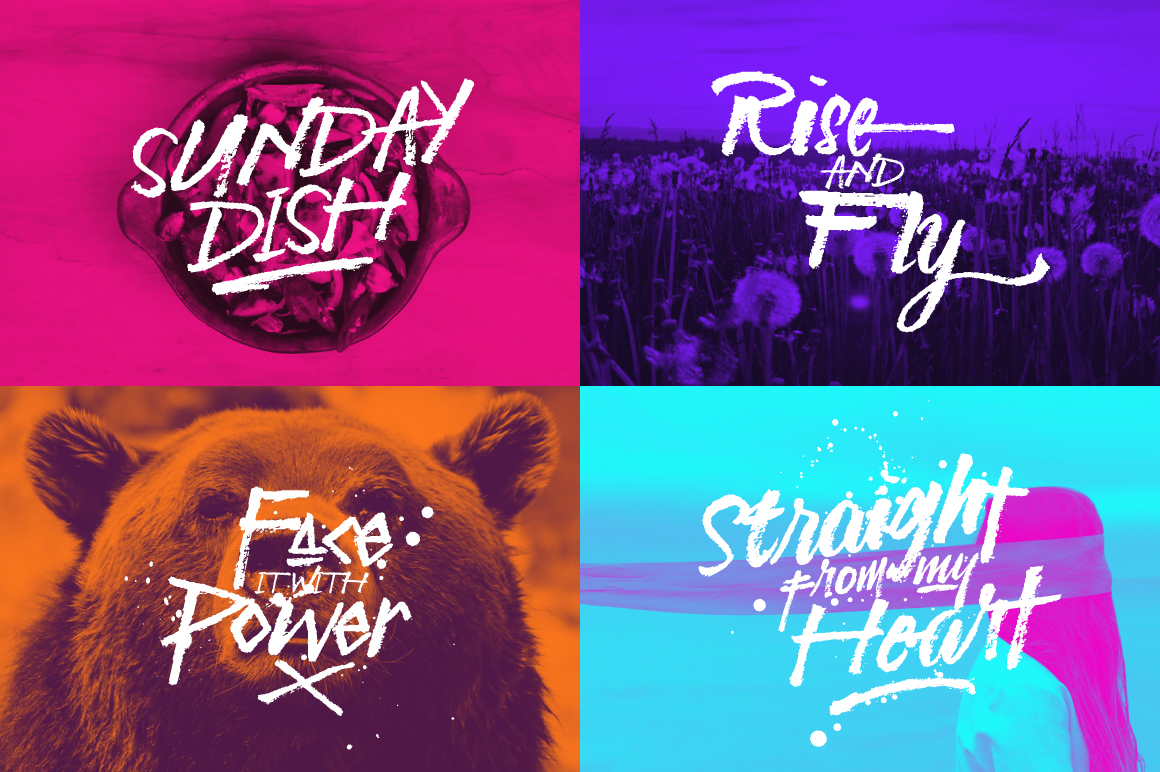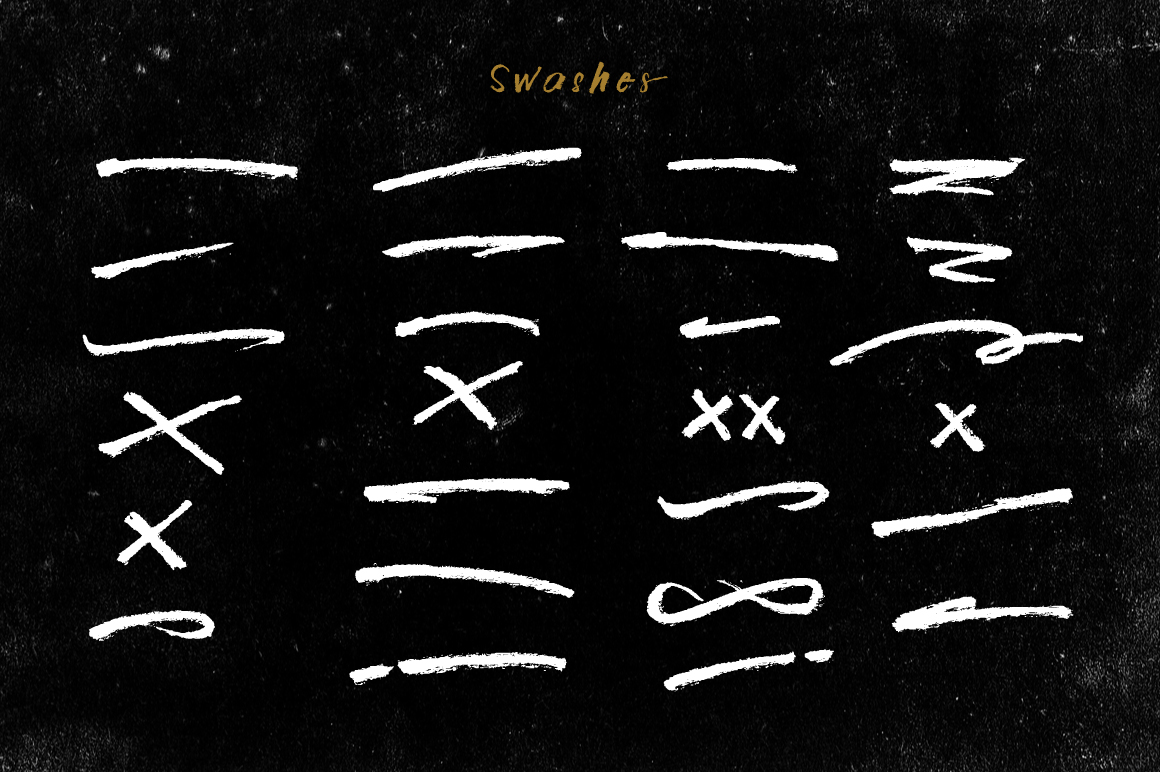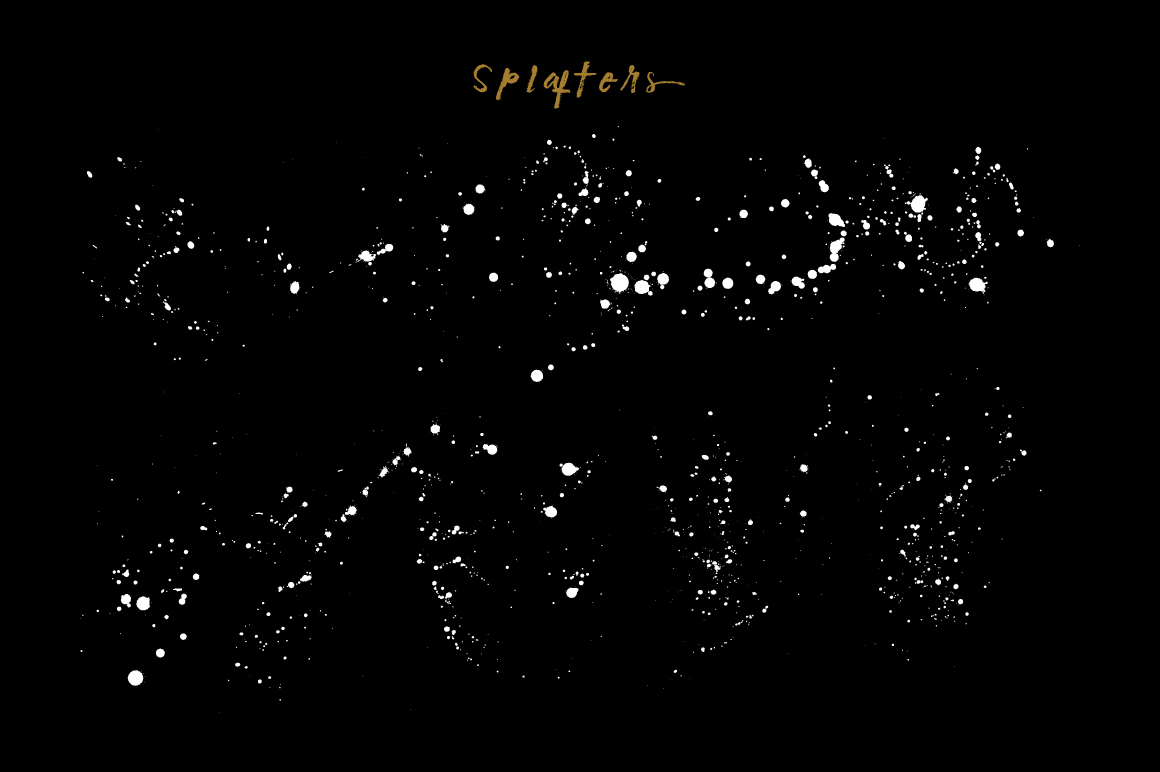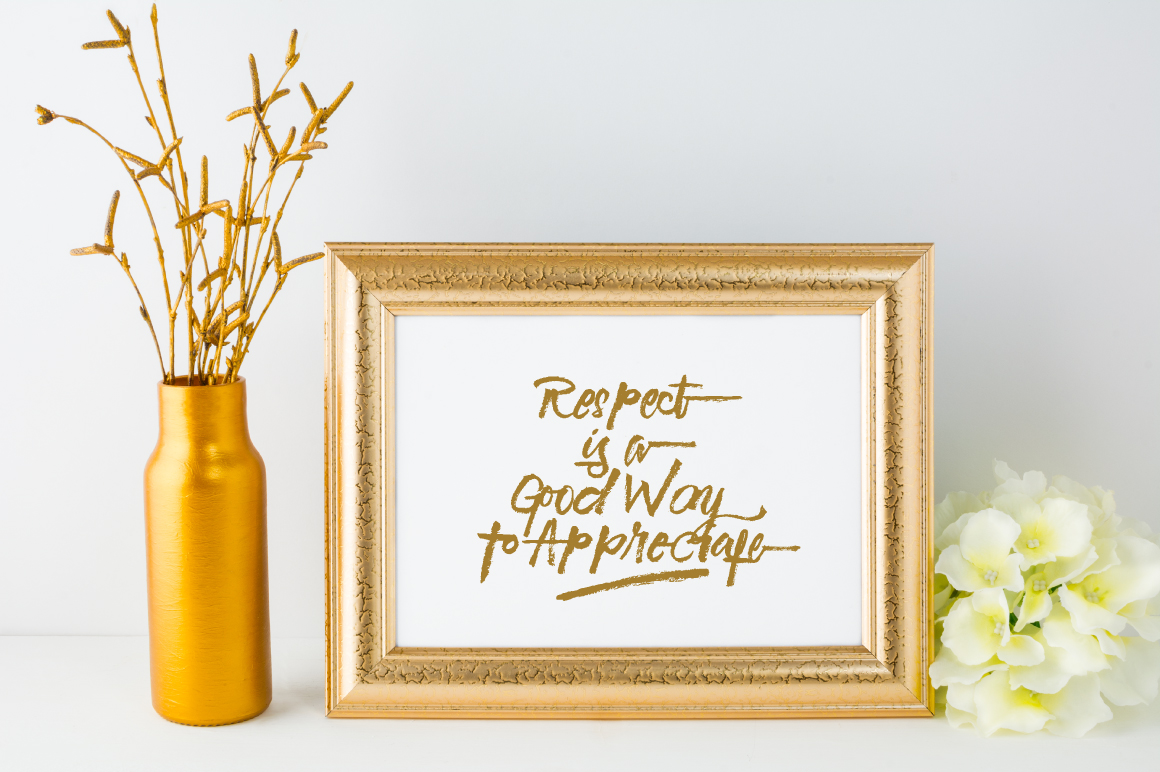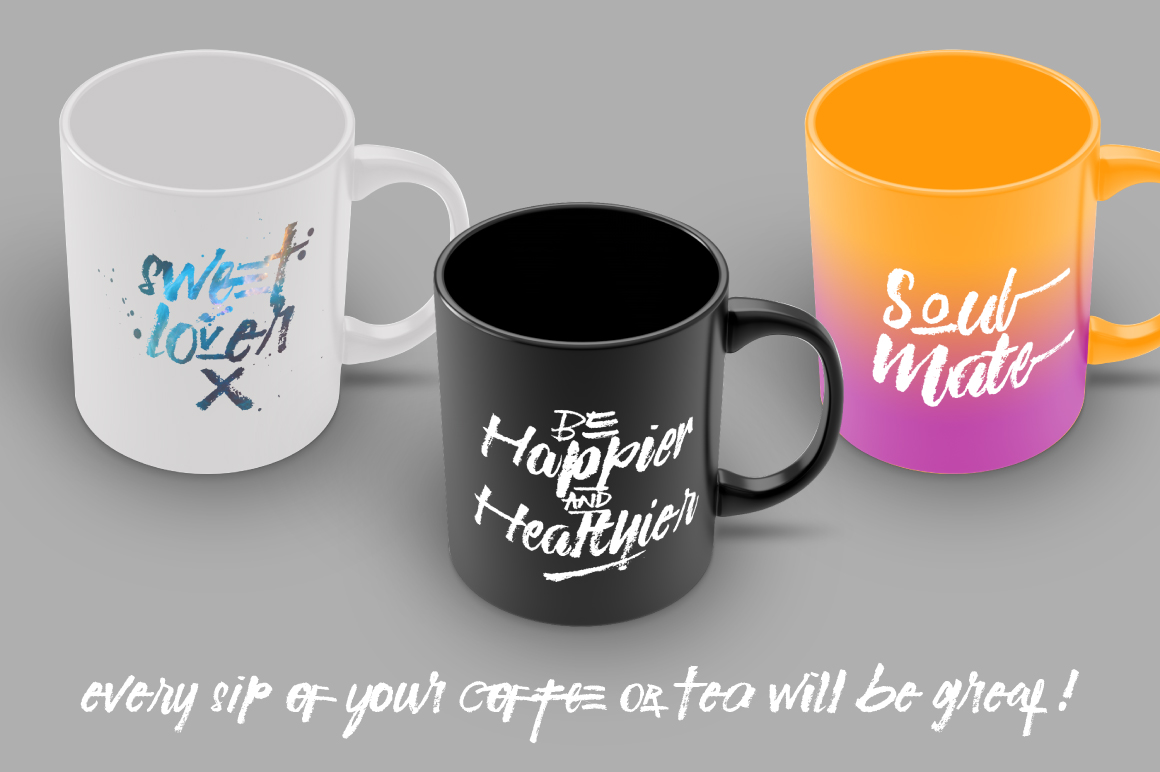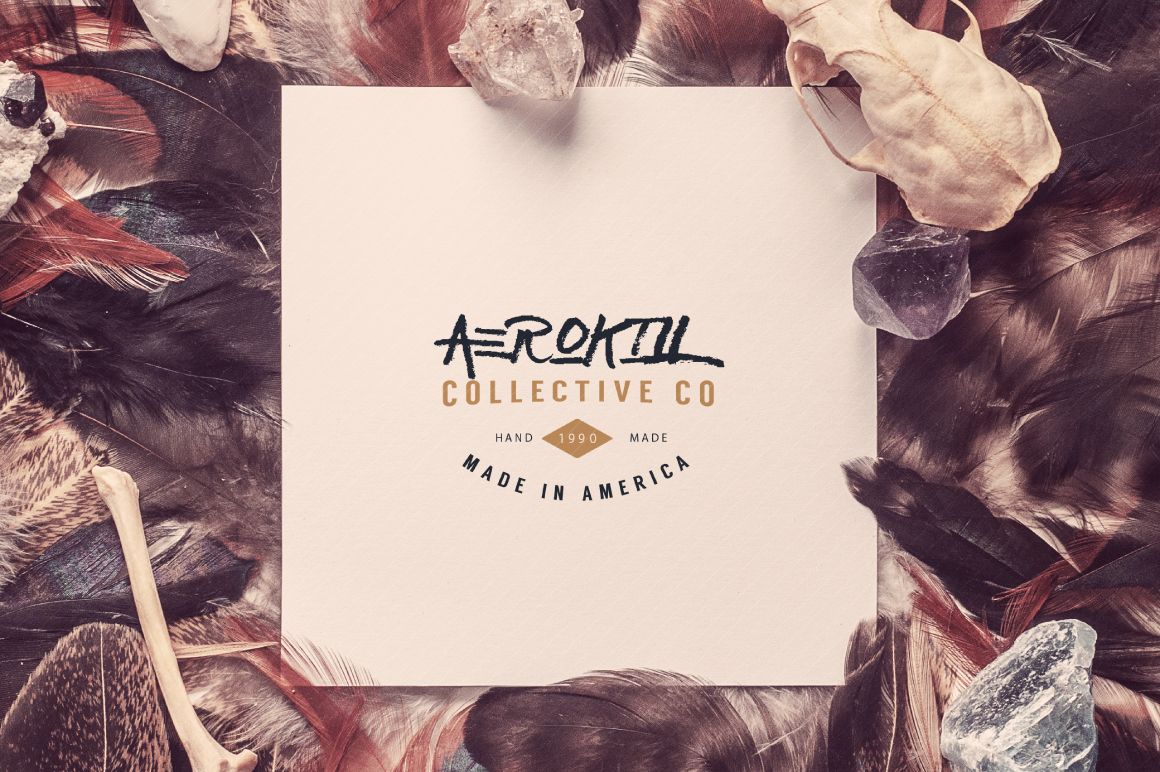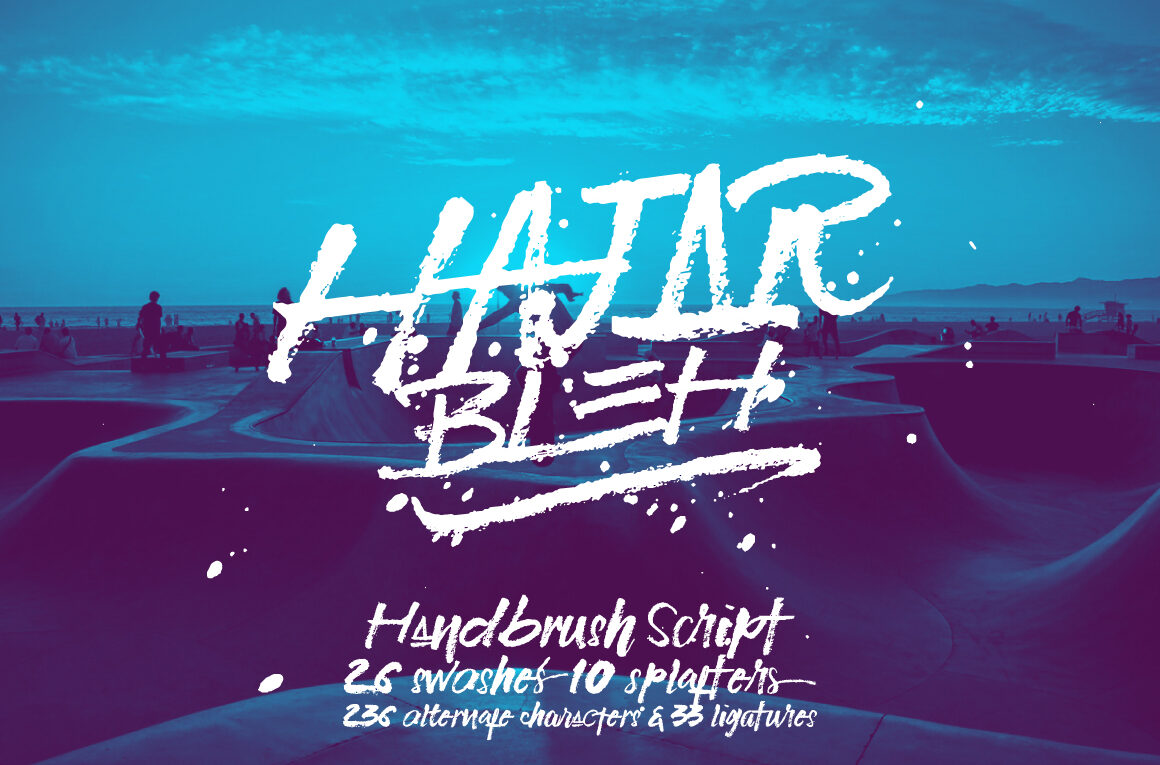
Hajar Bleh Font: Adding a Touch of Whimsy to Your Designs
In the world of typography, fonts play a crucial role in conveying the tone and personality of a design. For designers and crafters looking to add a dash of fun and uniqueness to their projects, the Hajar Bleh font is an excellent choice. This handwriting font boasts a distinctive style that can elevate a wide range of designs, from logos and apparel to invitations and digital media.
What is Hajar Bleh Font?
Hajar Bleh is a handwriting font that features a fun, unique style. Its irregularities and quirks give it a charming, human touch that sets it apart from more traditional fonts. The font’s design is characterized by its flowing lines, varying letter heights, and distinctive letterforms. These characteristics make Hajar Bleh an excellent choice for designs that need to be expressive and attention-grabbing.
Key Features of Hajar Bleh Font
- Handwritten style: Hajar Bleh has a genuine handwritten feel that adds a personal touch to any design.
- Unique letterforms: The font features distinctive letterforms that set it apart from other handwriting fonts.
- Expressive: Hajar Bleh is perfect for designs that need to convey a sense of fun, playfulness, or creativity.
- Versatile: The font can be used in a wide range of design applications, from logos and branding to apparel and digital media.
Use Cases for Hajar Bleh Font
Hajar Bleh’s versatility makes it suitable for a variety of design projects. Here are some use cases where the font can shine:
- Logos and branding: The font’s unique style can help create a memorable brand identity that stands out from the competition.
- Apparel: Hajar Bleh is perfect for designing t-shirts, hoodies, and other apparel that requires a fun, casual look.
- Invitations and events: The font’s playful style makes it ideal for designing invitations, party decorations, and other event materials.
- Digital media: Hajar Bleh can be used in social media graphics, blog posts, and other digital content to add a touch of personality.
Tips for Using Hajar Bleh Font Effectively
To get the most out of Hajar Bleh, follow these tips:
- Use it sparingly: While Hajar Bleh is a beautiful font, it can be overwhelming if overused. Balance it with other fonts to create visual interest.
- Experiment with colors: The font’s playful style lends itself well to bright, bold colors. Don’t be afraid to experiment and find the perfect color combination.
- Pair it with complementary fonts: Combine Hajar Bleh with other fonts that complement its style. This will create a cohesive look and add depth to your design.
Hajar Bleh font is a unique and expressive handwriting font that can add a touch of whimsy to your designs. Its versatility, playful style, and distinctive letterforms make it an excellent choice for designers and crafters looking to create eye-catching projects. By following the tips outlined above and experimenting with different design applications, you can unlock the full potential of Hajar Bleh and take your designs to the next level.